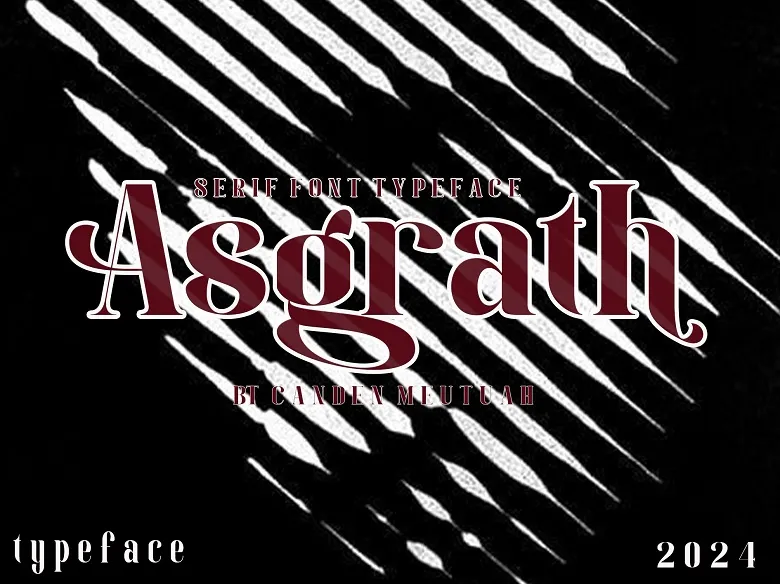
Asgrath Font is a clean and stylish serif typeface with a clear and elegant design of modern appearance. It is very appropriate for branding, logos, weddings, social networks, advertising, packaging, products, labels, photography, watermarks, invitations, stationery, and any project.